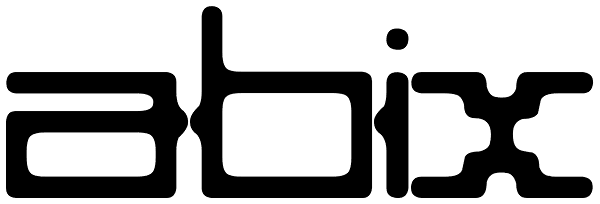
Abix
What was the inspiration for designing the font? My inspiration is experimental music Usage recommendations: could be: Name Djs, conceptual apparatus, modern machines, computers, Hybrid etc.
Abix Font